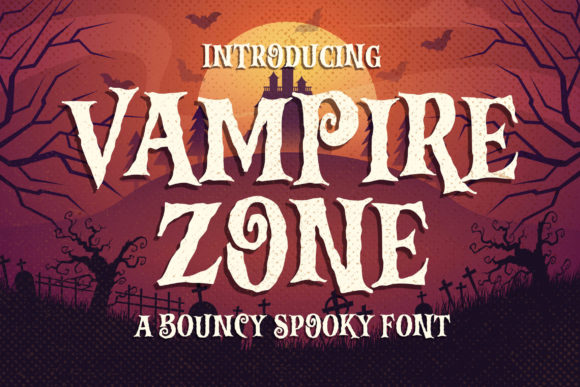
Introducing Vampire Zone Font - the ultimate choice for all your Halloween design needs! Created by the talented team at Blankids Studio, this cool, bouncy, and spooky display font is the perfect addition to any Halloween-themed project.
With its captivating and eye-catching style, Vampire Zone Font is guaranteed to make your designs come alive! It exudes an air of mystery and excitement, instantly setting the spooky mood for any Halloween invitation, poster, or social media graphic.
Immerse yourself in the world of vampires and witches as you explore the endless possibilities this font has to offer. Its unique and playful design will captivate both kids and adults alike, making it the best font for kids' invitations. Imagine the joy and anticipation your little ones will feel when they receive an invitation adorned with the Vampire Zone Font.
But this font is not just for kids' invitations - it's versatile enough to be used in a variety of design projects. Whether you're creating party flyers, haunted house posters, or even spooky merchandise, Vampire Zone Font will add that extra touch of magic and personality.
Not only does Vampire Zone Font offer an enchanting visual experience, but it also comes with a wide range of characters and glyphs, allowing you to unleash your creativity and express yourself fully. It's a font that understands the importance of details, making sure every letter and symbol is as captivating as the next.
So, why wait? Take your Halloween designs to the next level with Vampire Zone Font. Let its bounciness and spookiness create an unforgettable experience for your audience. Get ready to bewitch, enchant, and captivate with every letter. Download Vampire Zone Font now and let the magic begin!